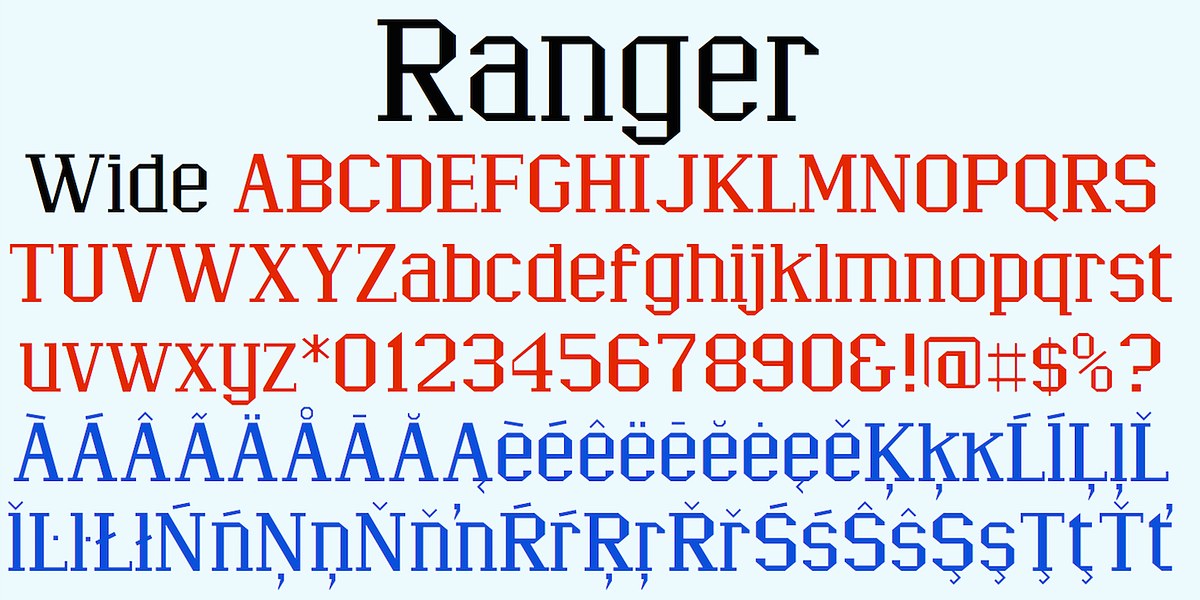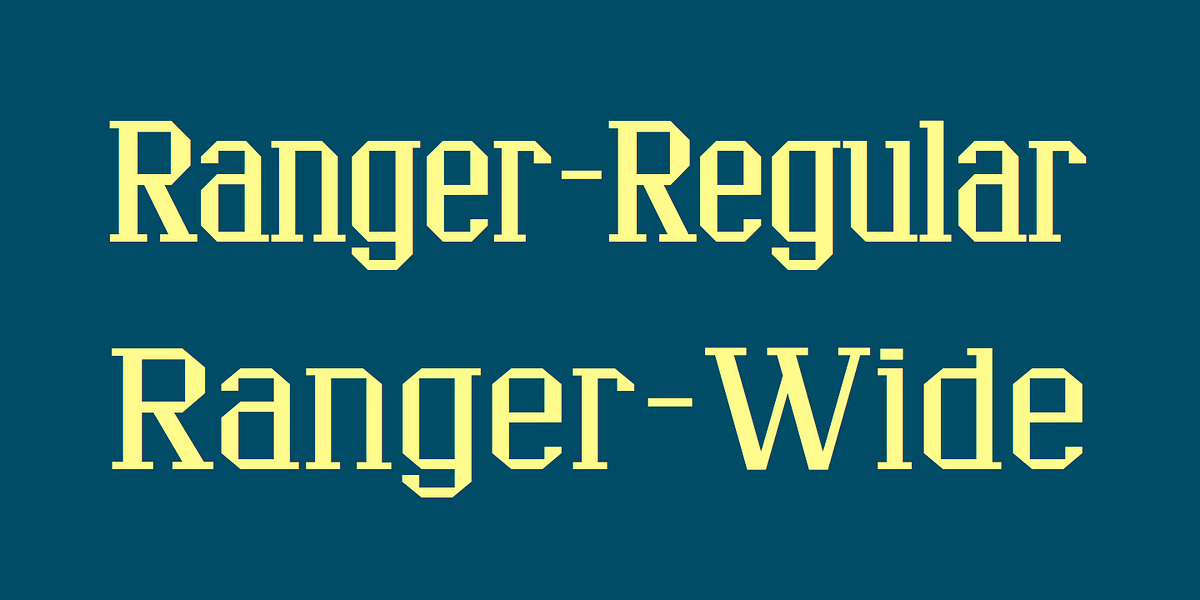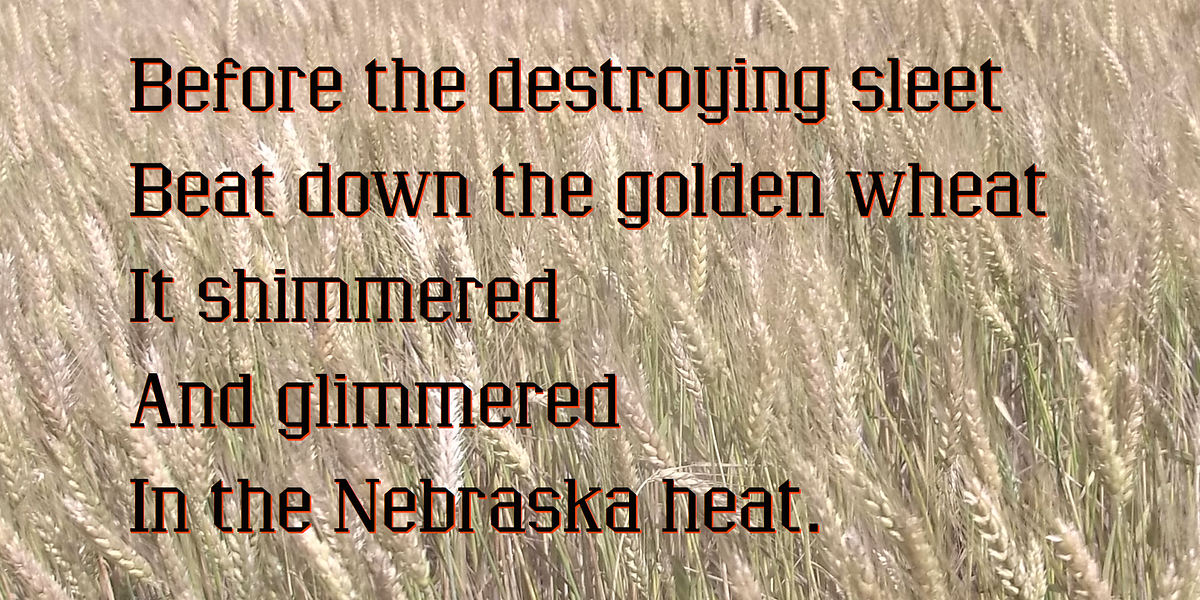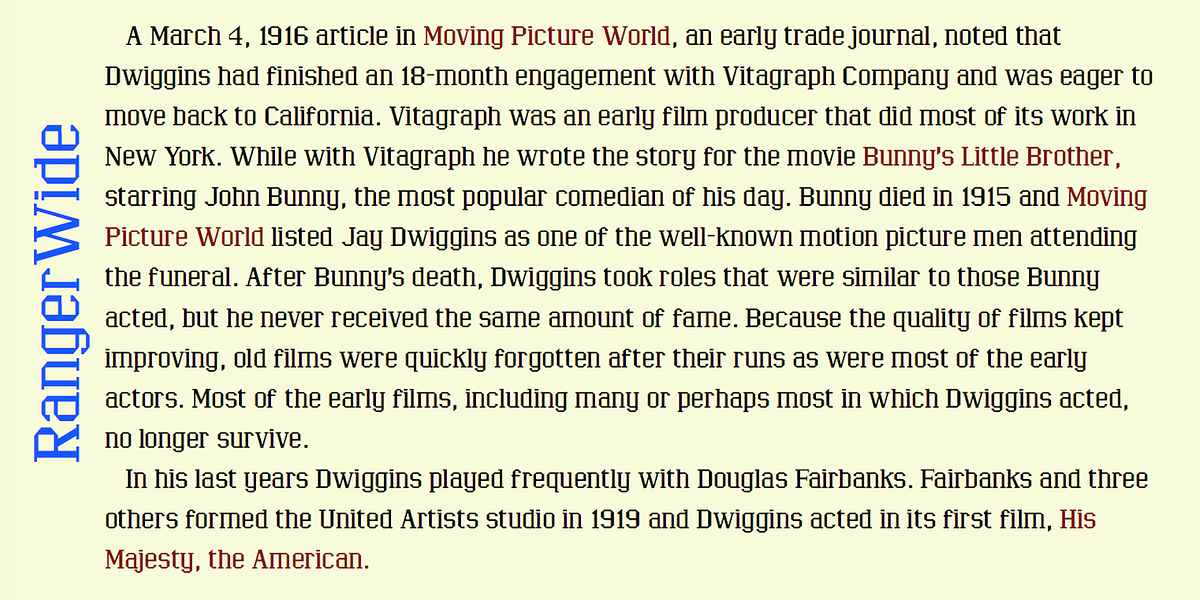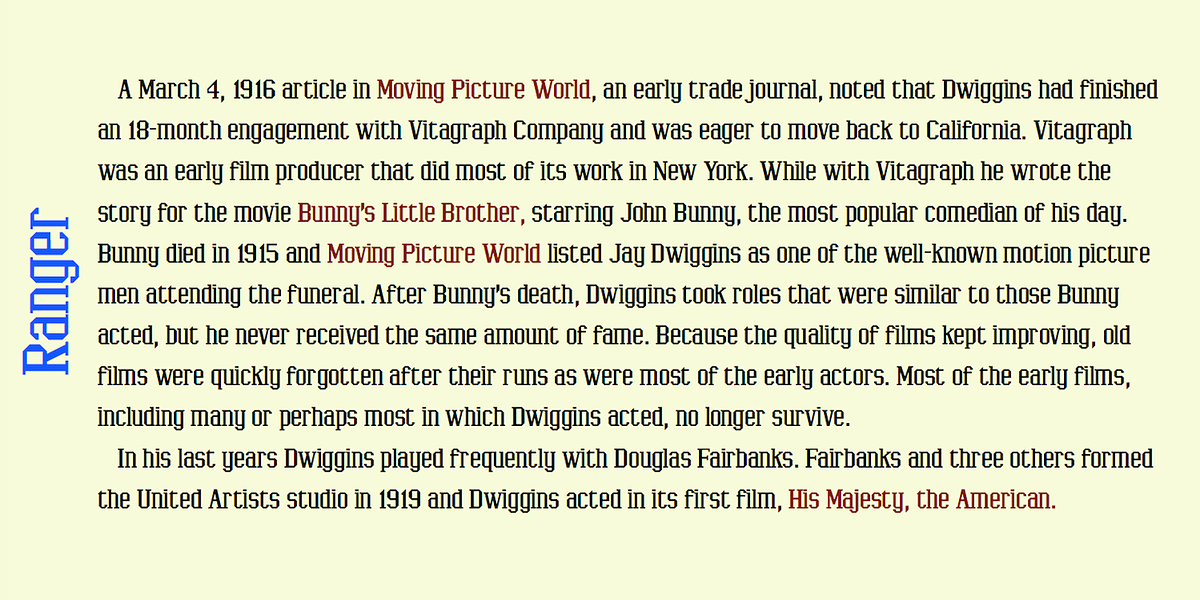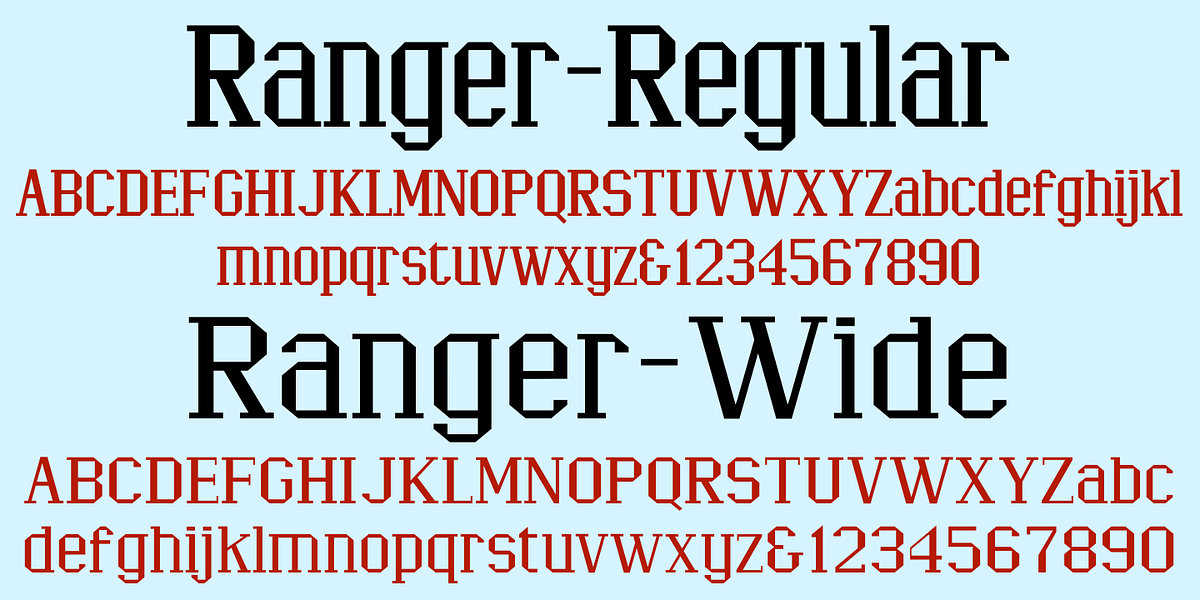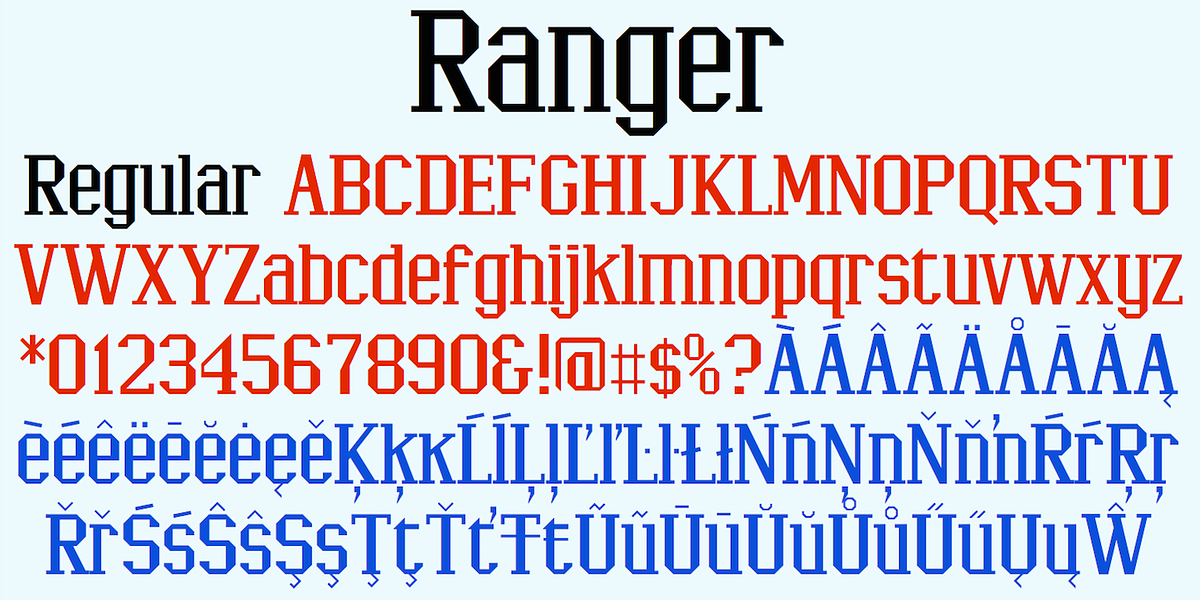
Ranger
Ranger is a sans-serif typeface belonging to the display slab category. Its defining feature is its geometric construction, devoid of any curves and characterized by sharp angles. Notably, the lowercase letters possess an extremely high x-height, making them stand out prominently.